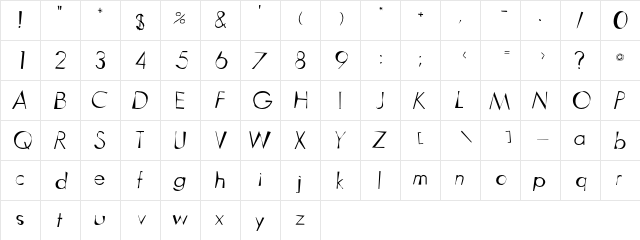
Earthquake Regular
Design Context for Earthquake Typeface
Earthquake is a composed and adaptable typeface that performs quietly and consistently across a wide range of design contexts.